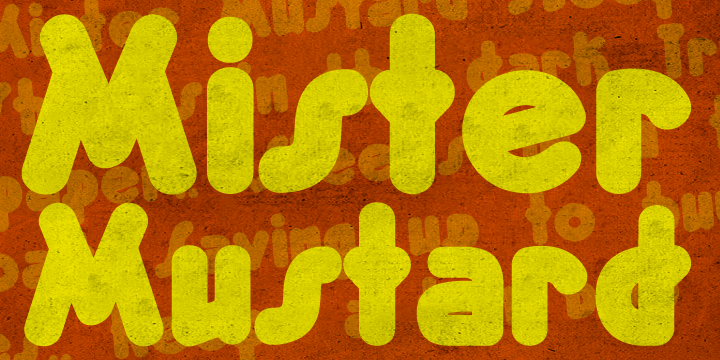
MisterMustard is a chubby art deco style font, not thin or elegant, but plump and jolly. The font is available in two styles regular and italic. While it was designed to be playful, this font has both an uppercase and a lower case, so it works for practically everything (maybe not a headstone or obituary). It’s loaded with extra foreign glyphs so it gives you plenty of options.